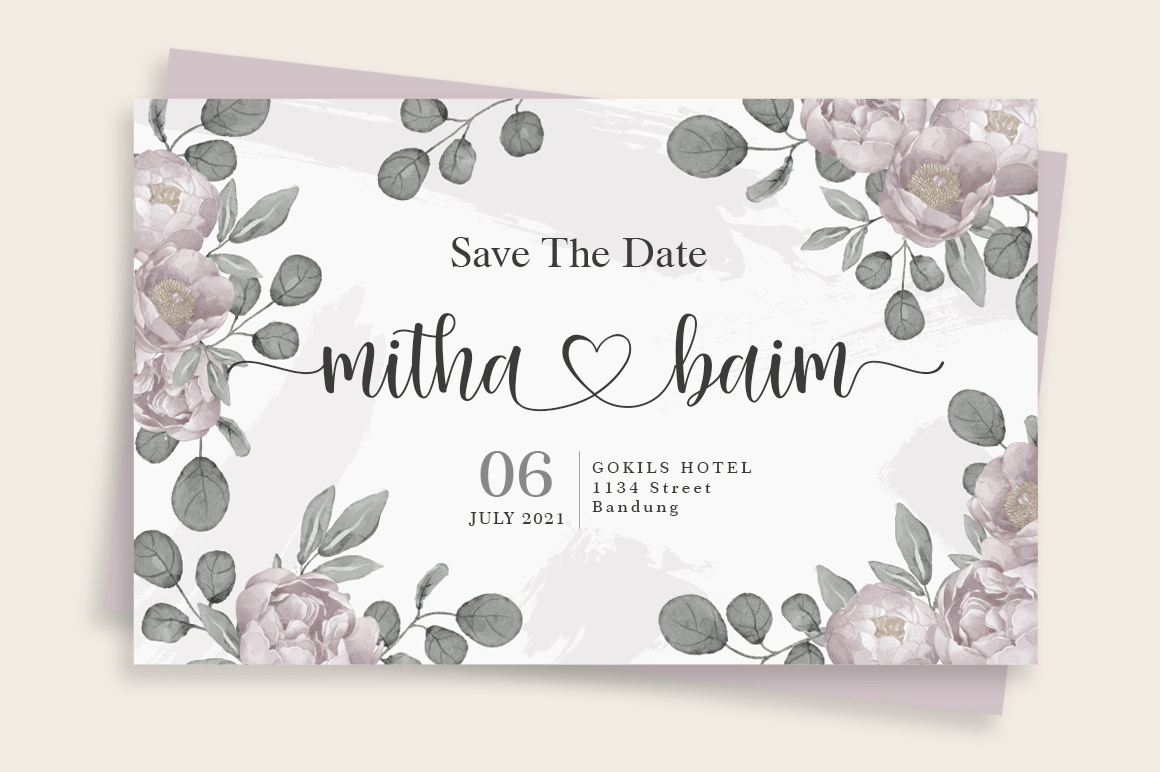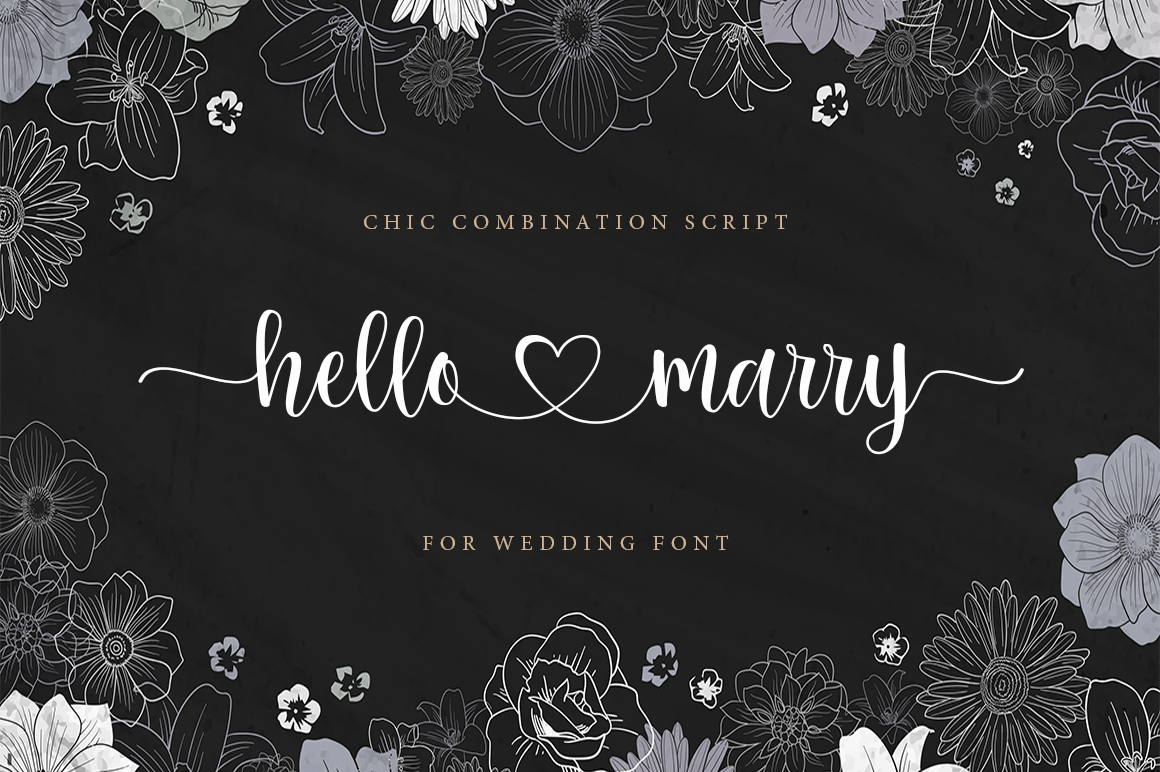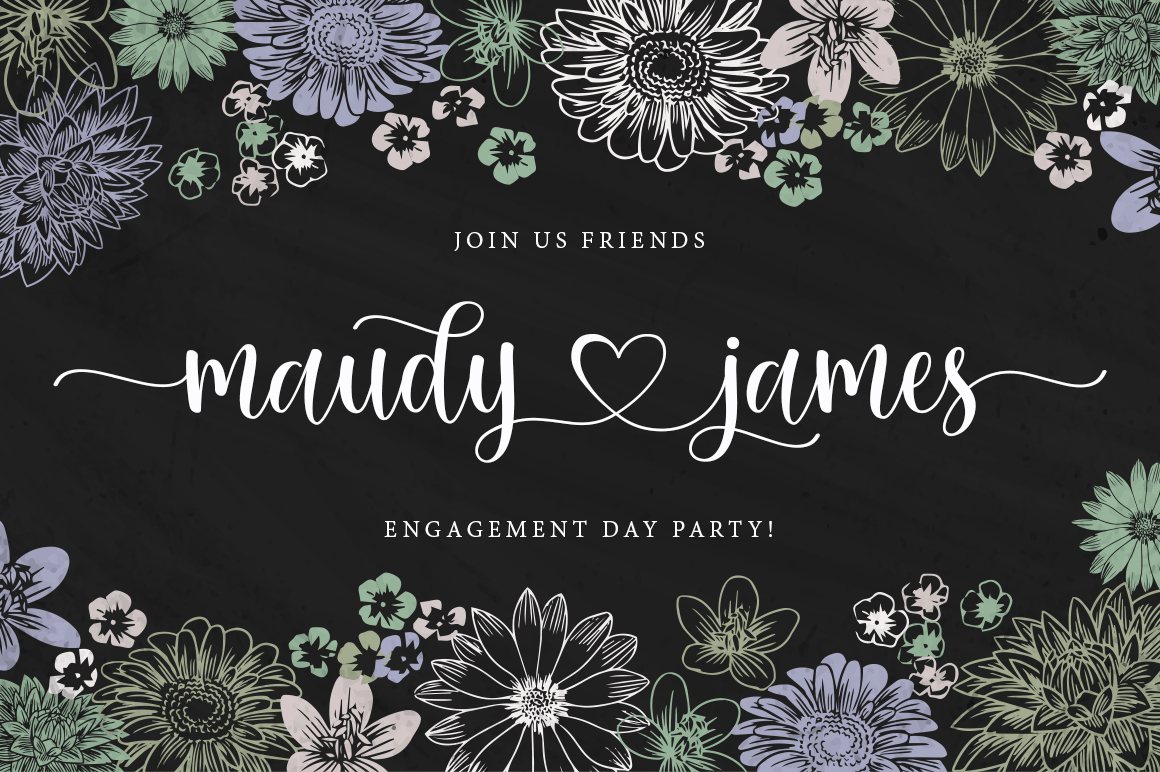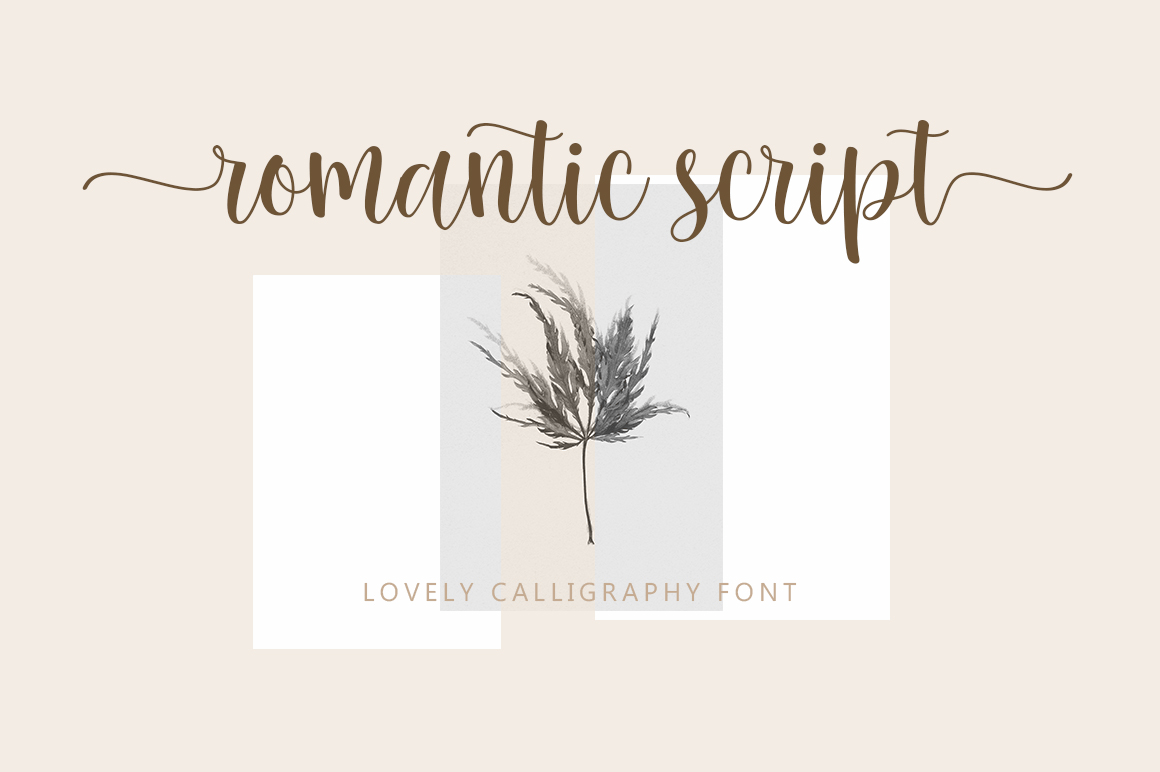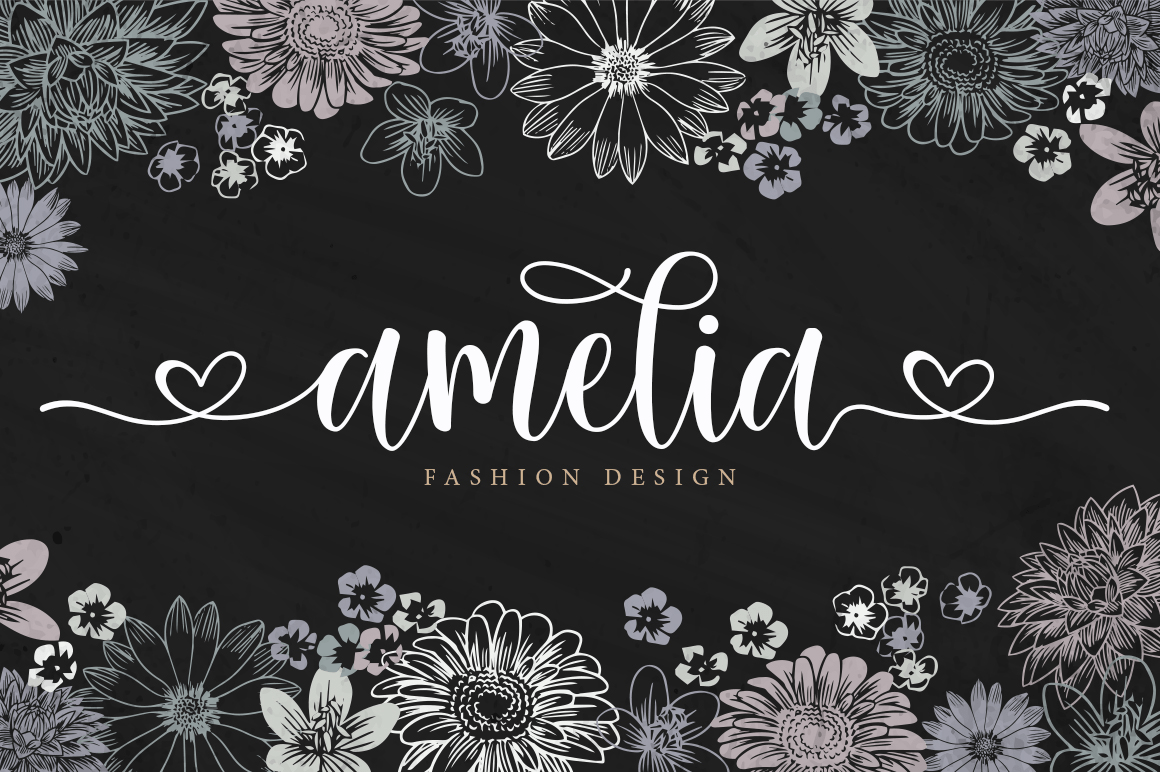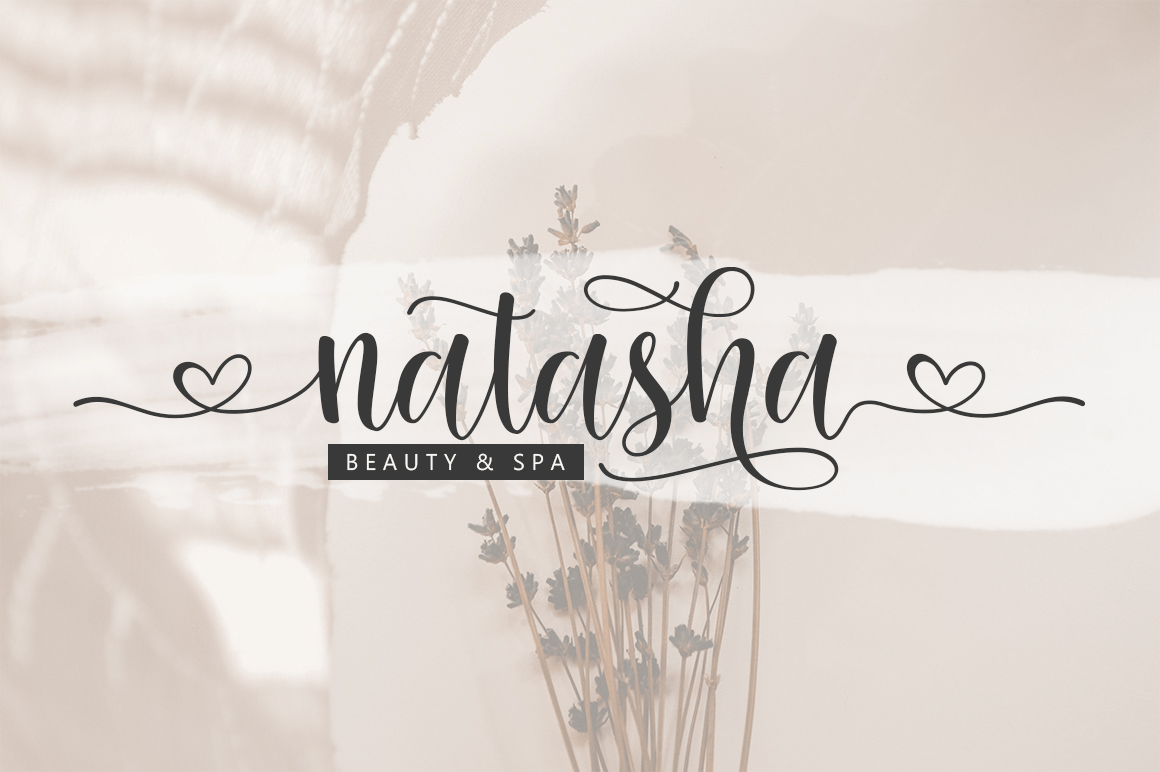
Michel Elisha Script
About Michel Elisha Script
Michel Elisha Script! A new fresh and modern hand lettered font with decorative characters and a dancing baseline. So beautiful on invitation like handicraft, greeting cards, branding materials, business cards, quotes, posters, and more design concepts.…